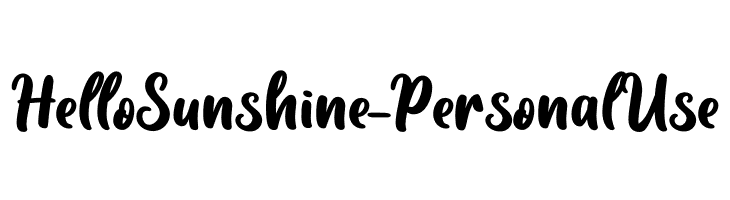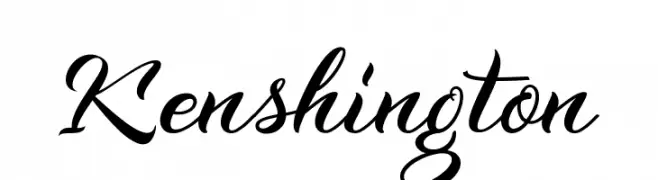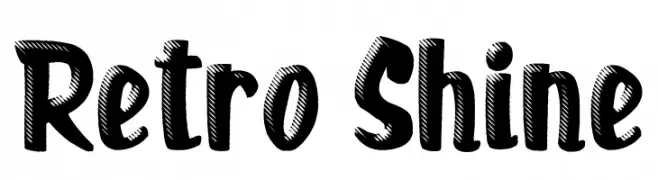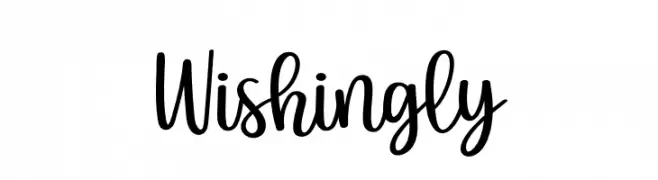
A bold, ornate Blackletter-style font with high contrast and intricate design.
A classic serif font with elegant strokes and pronounced serifs.
A dynamic, cursive script font with a flowing, handwritten style.
A bold, brush-style font with expressive, hand-painted characteristics.
A playful, flowing handwritten font with smooth curves and casual elegance.
A playful, handwritten font with tall, narrow letters and a casual style.
An elegant script font with smooth, flowing lines and graceful curves.
A playful, bold font with rounded, whimsical letterforms.
A bold, retro-style font with diagonal hatching and a playful, dynamic appearance.
A playful, bold script font with interconnected, flowing strokes.